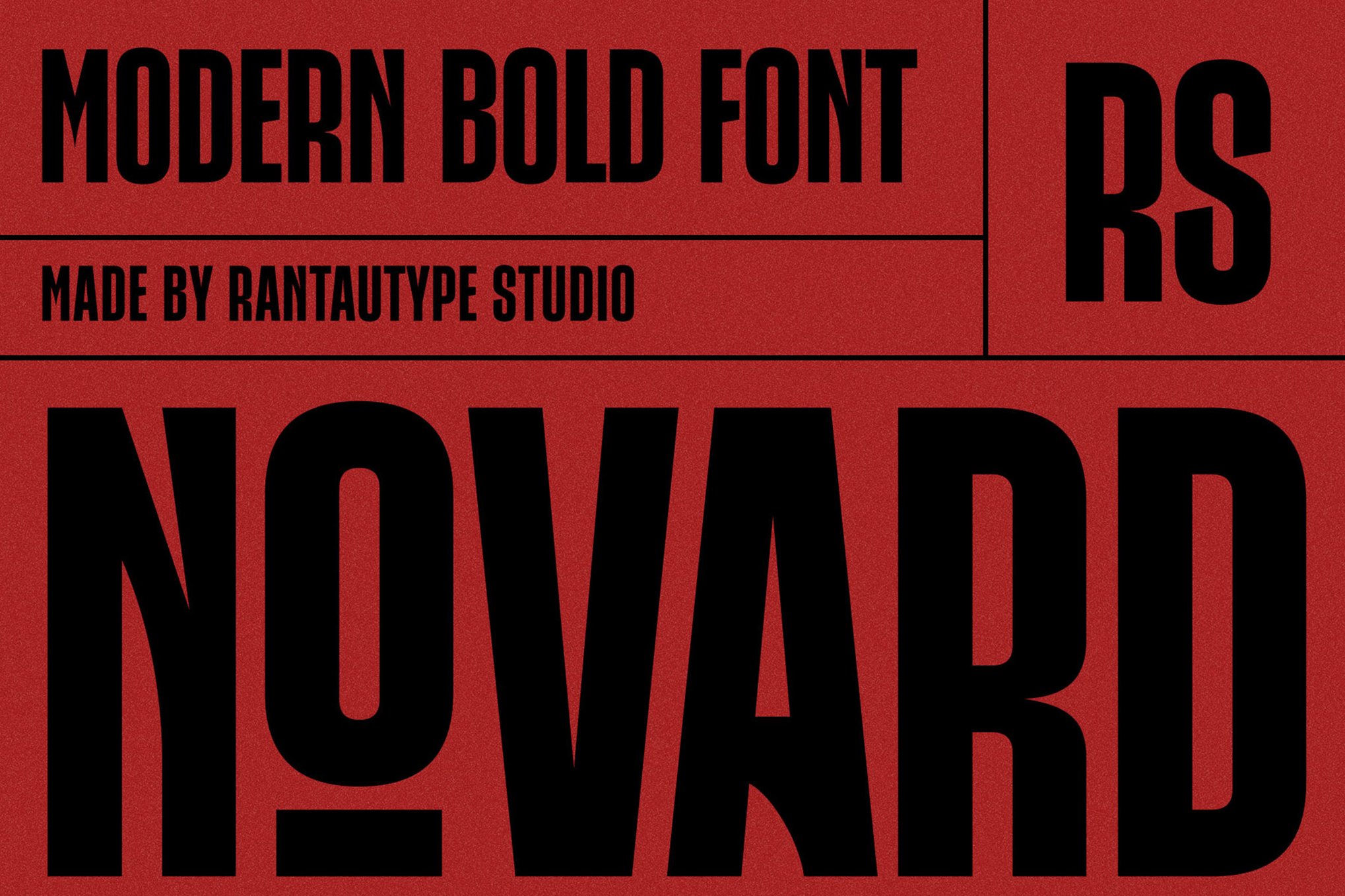
Novard – Bold Sans Font
Novard – Bold Sans Font brings a balanced structure and contemporary look, making it suitable for both digital and print design. Novard is modern , bold and strong font. Novard come with confidence, clarity, and a powerful visual presence. Novard is a perfectly choice for any creative endeavor, creating, modern, lifestyle design such as logotype, title, cover, branding, invitations, wedding designs, display and magazine, social media posts, advertisements, printed quotes, product packaging, corporate brand, product designs, labels, photography, watermarks, special events and any other project with modern touch.